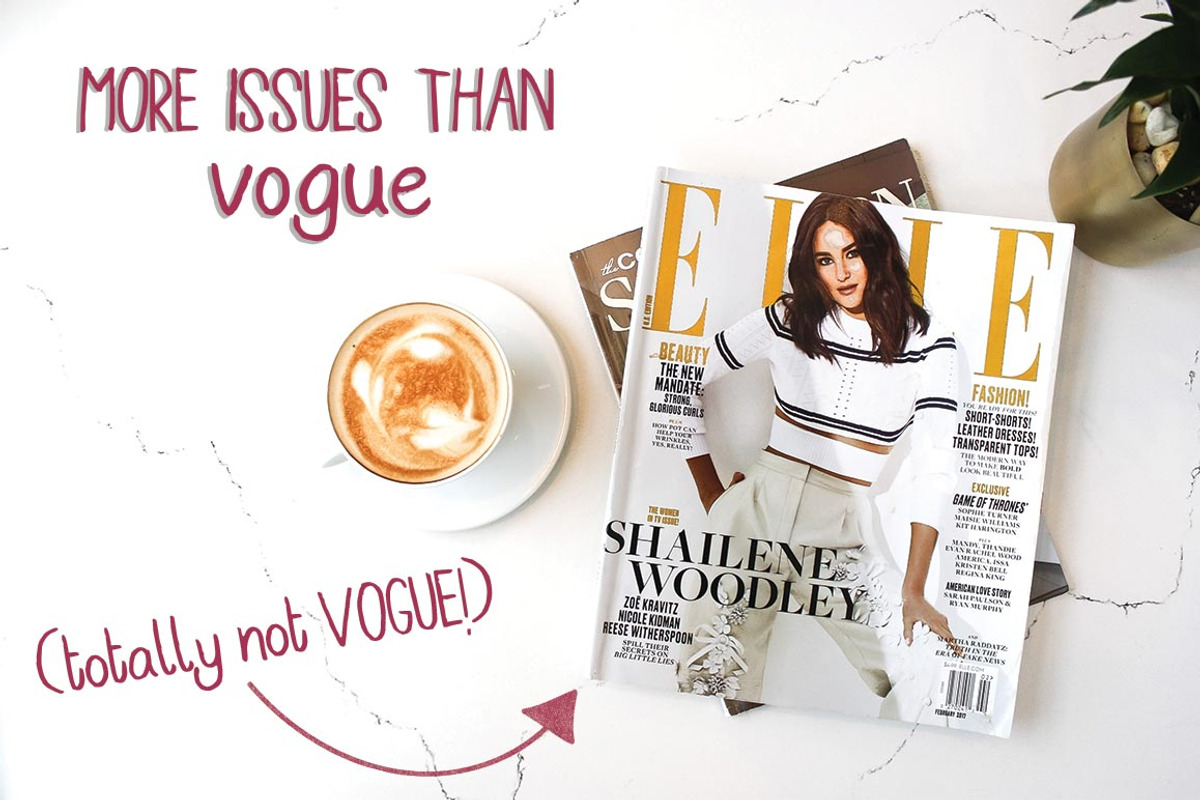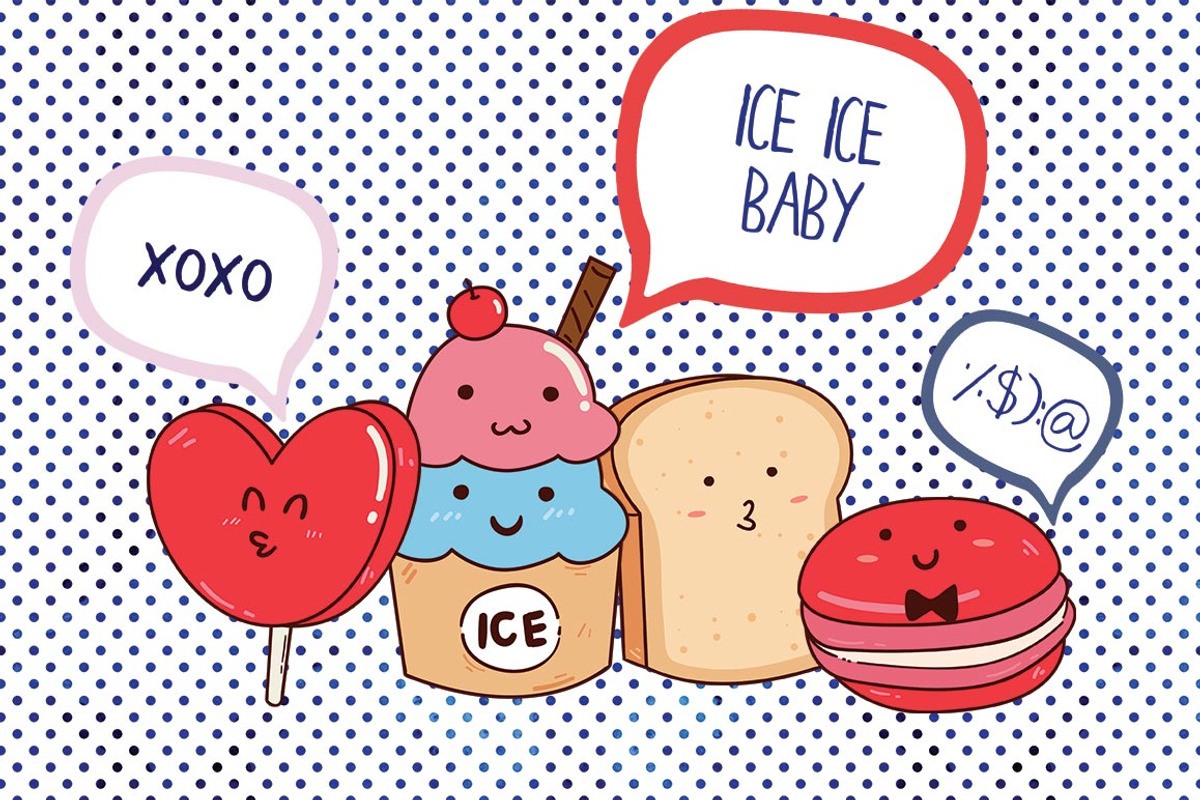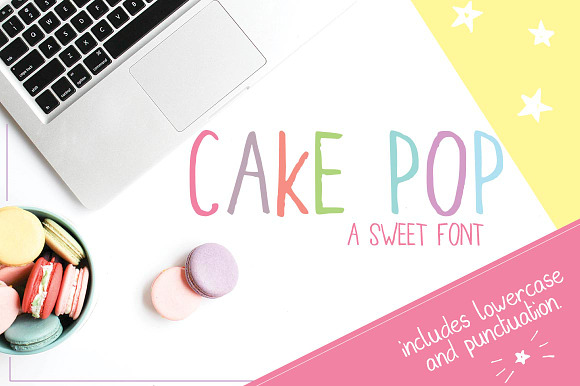
Cake Pop Font
A fun and cutesy font that's perfect for your sweet tooth! :) Useful for headers, large blocks of text and adding a hand-drawn vibe to your designs.
Cake Pop Font by Salt & Pepper Designs fits naturally into Branding, posters, packaging, typography.